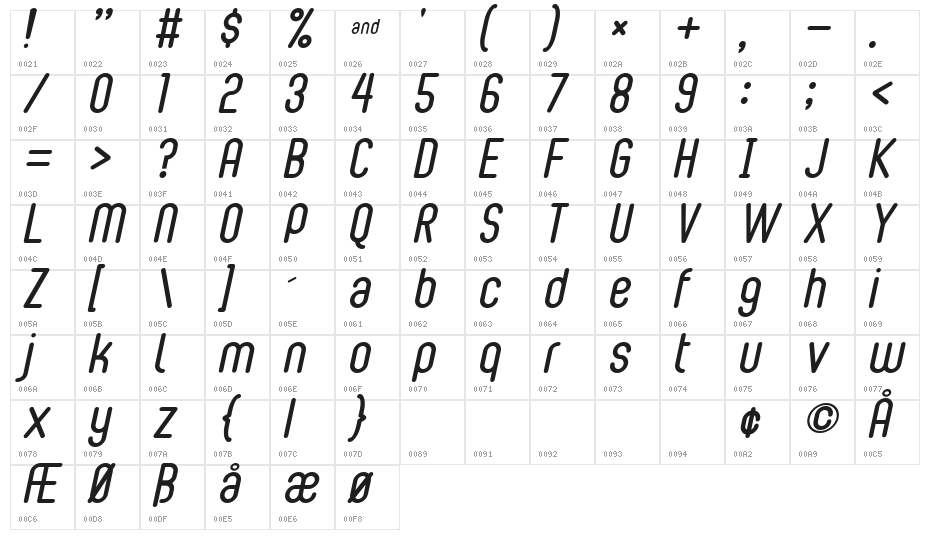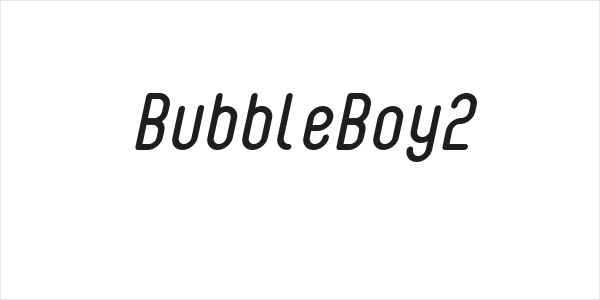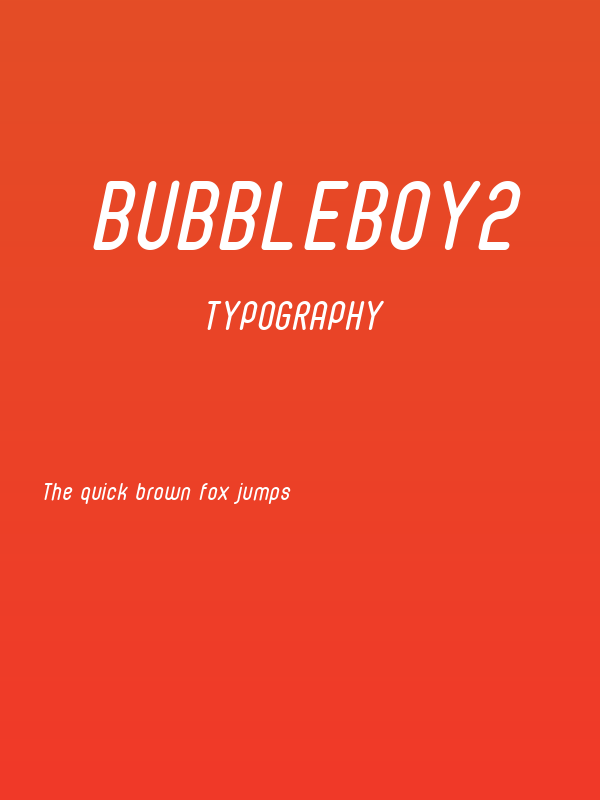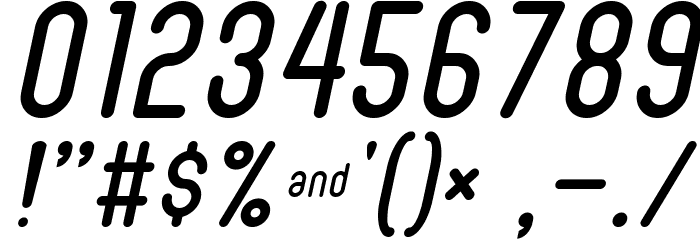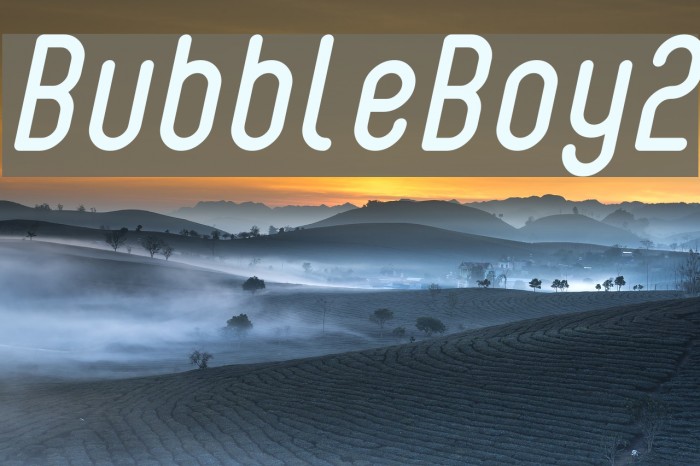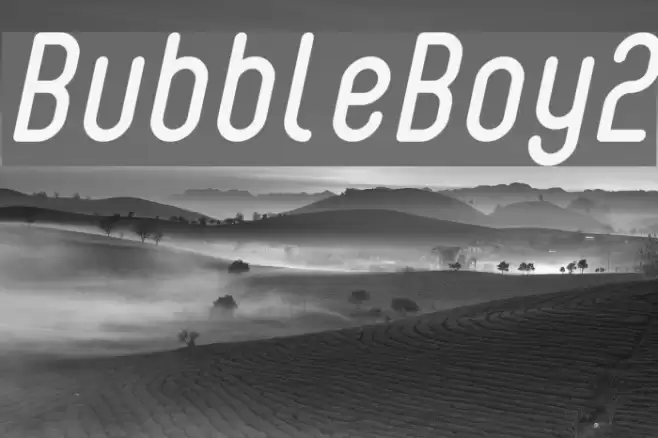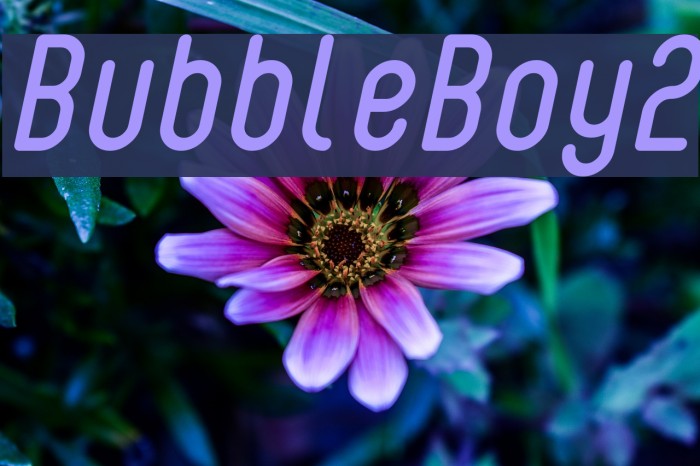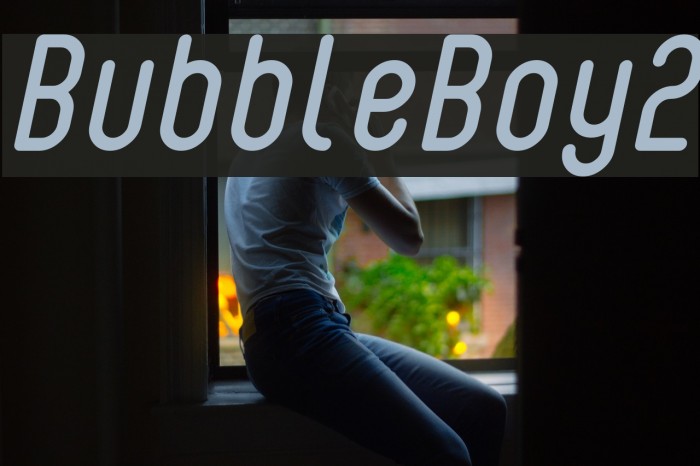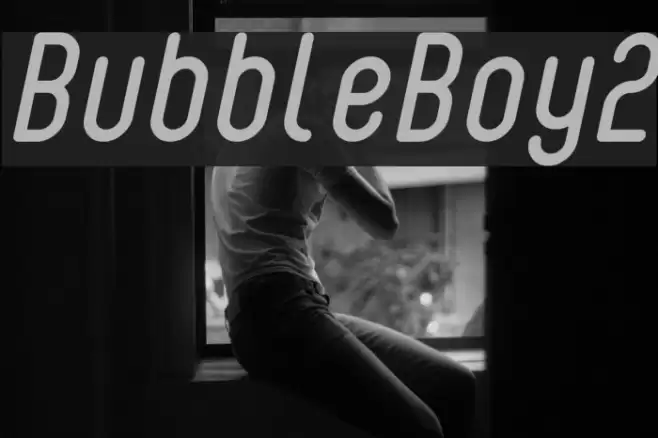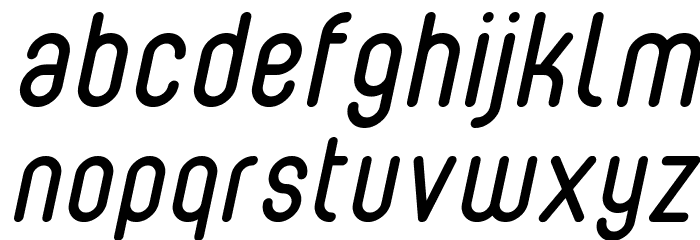
BubbleBoy2 Font
BubbleBoy2 Description
This font features a modern, rounded style with a smooth and flowing appearance. The characters are slightly elongated with a consistent stroke width, giving it a sleek and contemporary look. The rounded edges and uniform line thickness contribute to its friendly and approachable feel. It maintains a clean and legible design, making it suitable for various applications. The numerals and special characters are designed to match the overall aesthetic, ensuring consistency across all glyphs. This font is versatile and can be used in both digital and print media.
| Use Case | Headlines, Body text, Logos |
| Proposed Projects | Ideal for branding, advertising, packaging, and web design projects. |